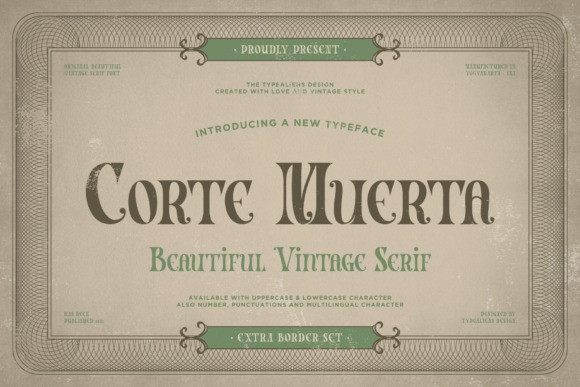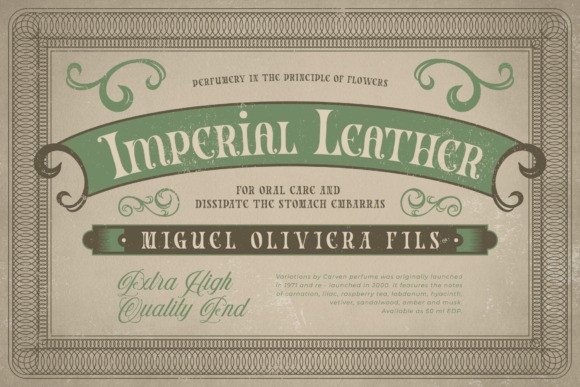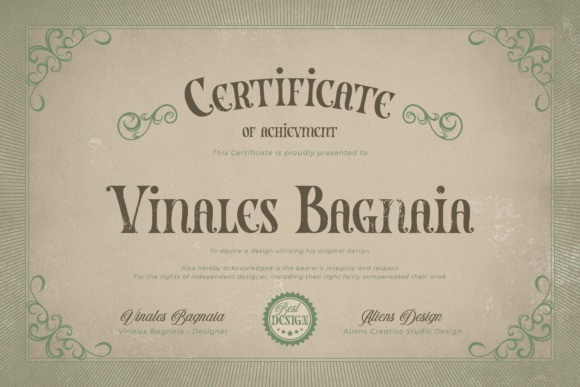
Corte Muerta Font
Corte Muerta is a unique and somewhat spooky serif font, featuring little ornaments and different characters for a unique result! It works great for both modern and retro creative projects!